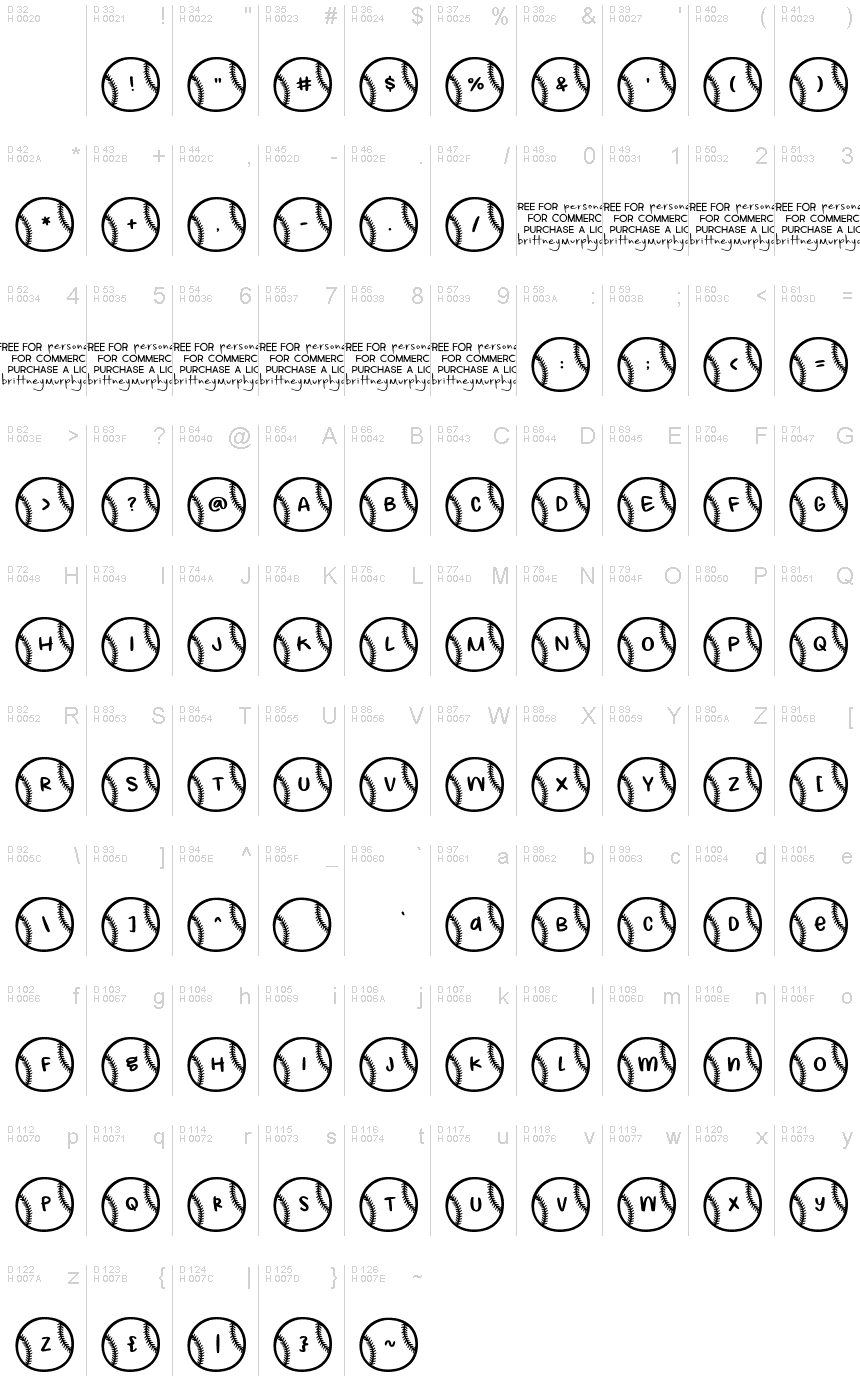
Baseball Letters Demo Regular
Step up to the plate with Baseball Letters, the perfect display font for sports-themed projects. Created by Brittney Murphy Design, this decorative typeface features a unique twist on traditional baseball fonts - each letter is filled with a smaller letter inside, adding depth and interest to your designs. With its semi-light weight, Baseball Letters is ideal for headlines and titles that need to make an impact without overwhelming the page. Use it on posters, flyers, logos, and more to bring a touch of sporty fun to your projects.
For a blank baseball, use underscore (_).